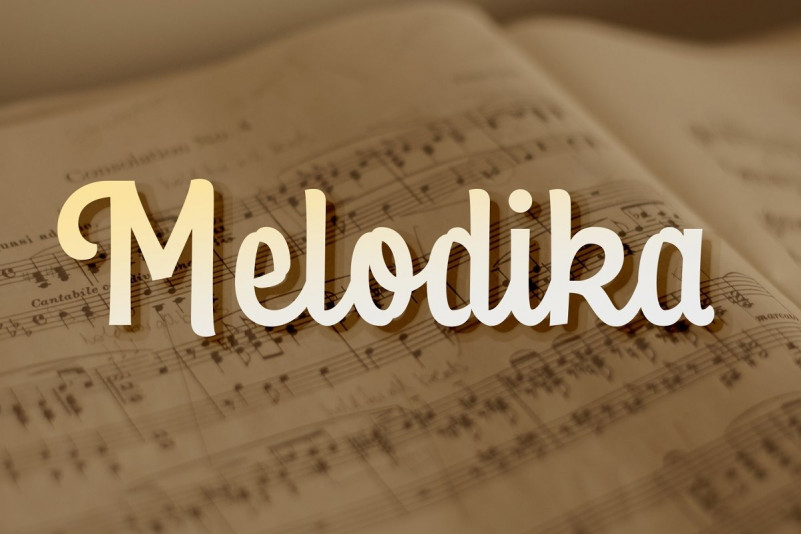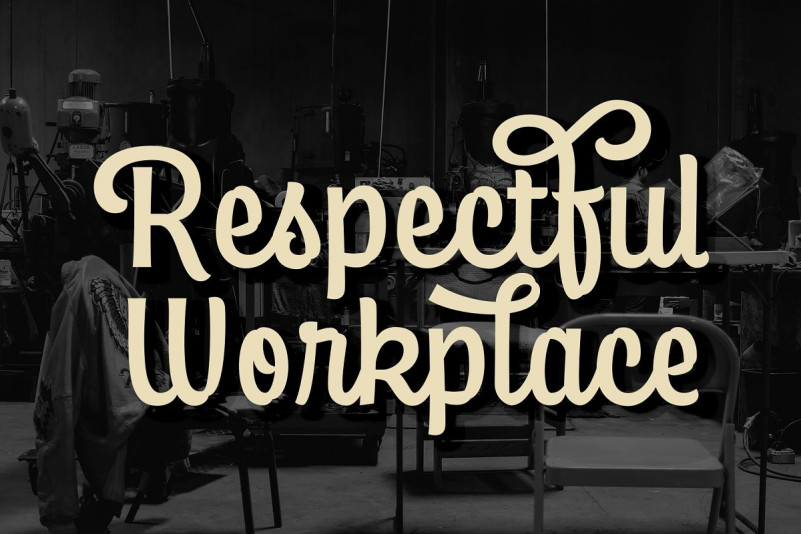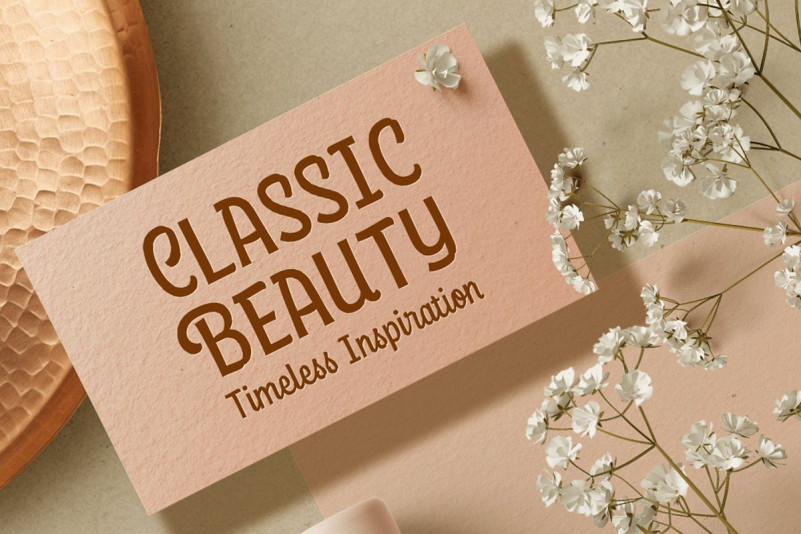
Melodika Font
Melodika is an elegant display script font. The sturdy and thick construction feels so strong which is the result of a combination of classic typeface and modern calligraphy.
The opentype feature is very rich with many alternative fonts on stylistic sets so you will easily mix and match typography in each of your designs.